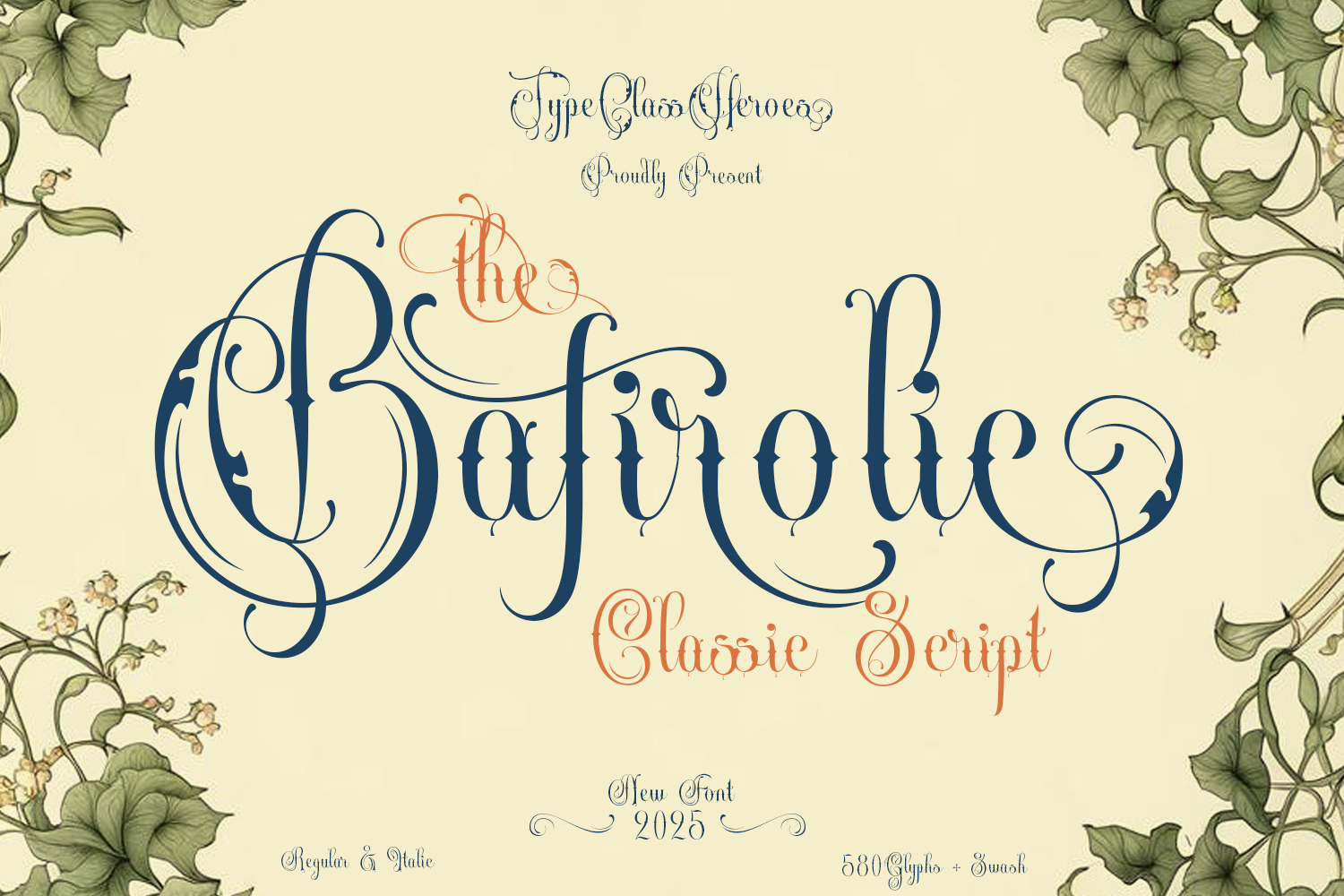
Bafirolic Classic Script
Introducing Bafirolic Classic Script, This font conveys an elegant feel with its soft, connected, upright strokes, yet each curve is infused with a subtle thorn motif, creating a blend of elegance and assertiveness. It's perfect for brand logo designs, gothic-romantic invitations, or branding projects that want to appear eccentric yet elegant.
•  Uppercase & Lowercase
•  Number & Symbol
•  International Glyphs
•  Alternative
•  Ligature